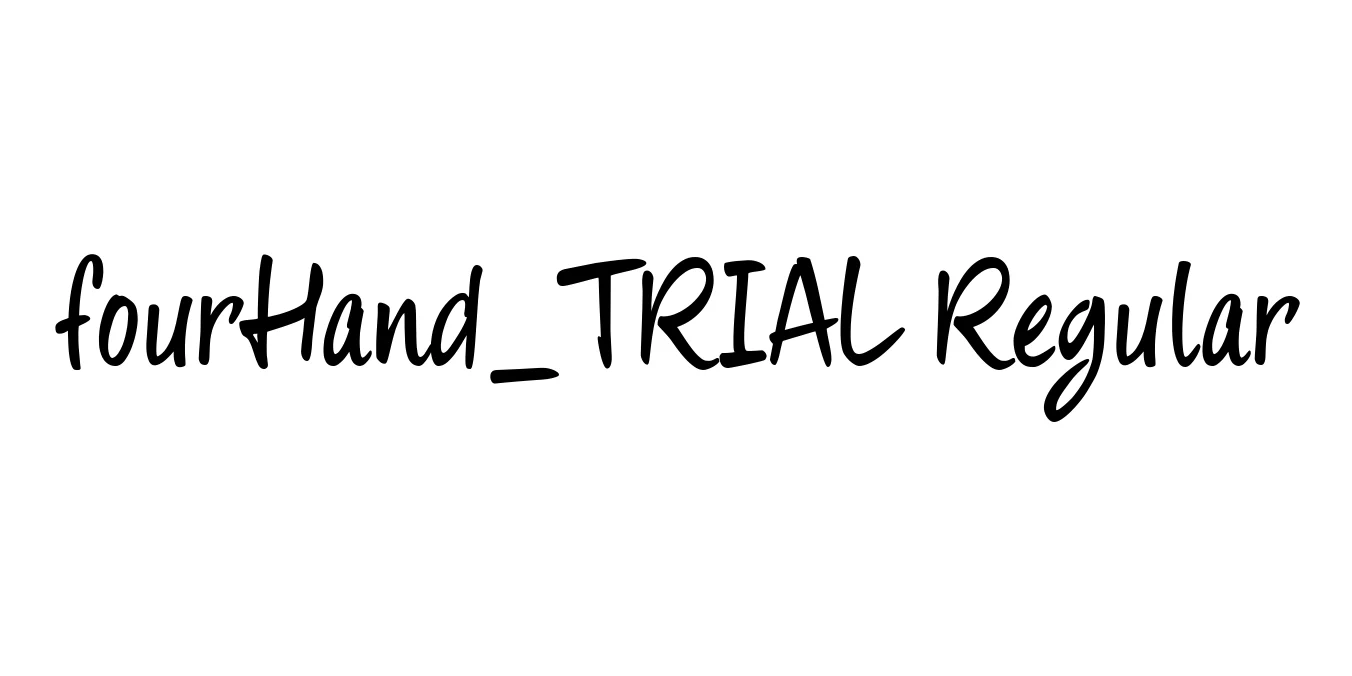
fourHand_TRIAL Regular
| Font Name | fourHand_TRIAL |
| Category | Script / Handwriting |
| Similar Fonts | Mistral, Freestyle Script, Autograf, Northwell |
fourHand_TRIAL Regular is a beautifully crafted script typeface designed by the prolific Mans Greback. This font is a celebration of natural penmanship, characterized by its fluid, rapid strokes and organic rhythm that mimics genuine human handwriting. It was created to provide designers with a tool that feels spontaneous and authentic, moving away from the rigid structures of traditional typography to offer a more personal and intimate aesthetic.
The typeface features a consistent weight that suggests the use of a felt-tip marker, making it highly effective for casual yet stylish communication. The TRIAL version serves as an introduction to the full family, showcasing the intricate ligatures and character variations that define the font's unique personality. It is widely utilized in modern branding, creative storytelling, and any project that benefits from a hand-drawn, artisanal touch.
fourHand_TRIAL Regular Best Uses
Excellent for creating relatable and organic-feeling Instagram stories or lifestyle posts.
Ideal for logo designs for small businesses, personal brands, and artisanal products.
Perfect for wedding invitations, greeting cards, and personalized digital notes.
Adds a human touch to pull quotes and signatures in magazines or digital blogs.